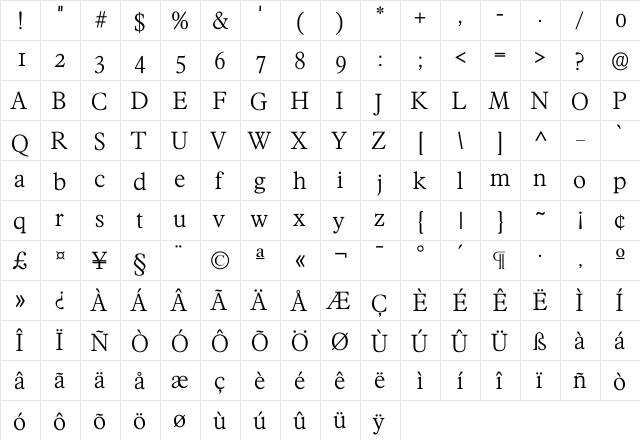
Francisco Light
Design Context for Francisco Typeface
Francisco offers clean, dependable letterforms without strong stylistic allegiance, making it a practical choice for designers who need flexibility. Its slender proportions lend an understated elegance to any composition.